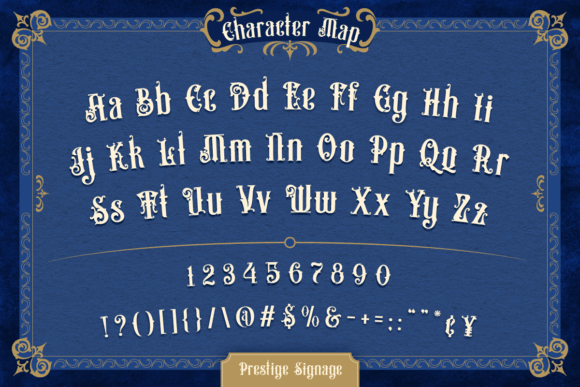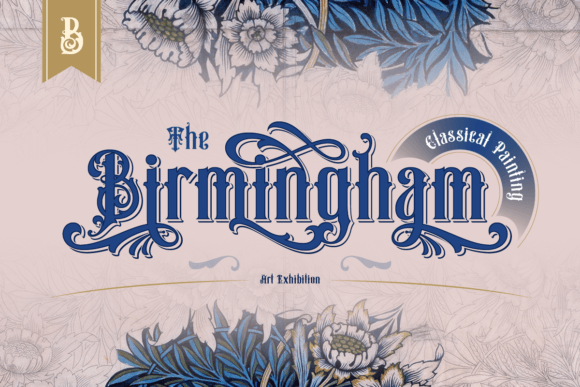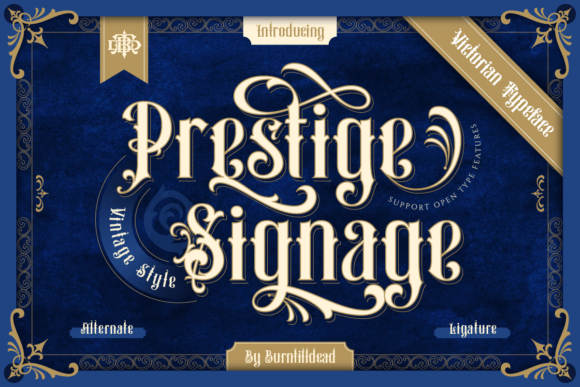
Introduction to Prestige Signage Font
Introducing Prestige Signage, a stylish blackletter font inspired of Victorian era.
This font exudes timeless elegance and prestige Perfect choice for design project with classic and vintage theme concept like brand label, book cover, signage and many more.